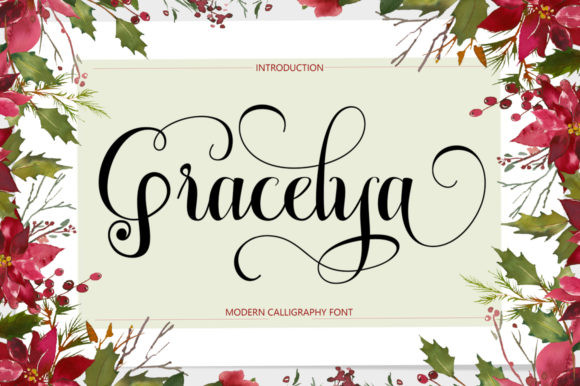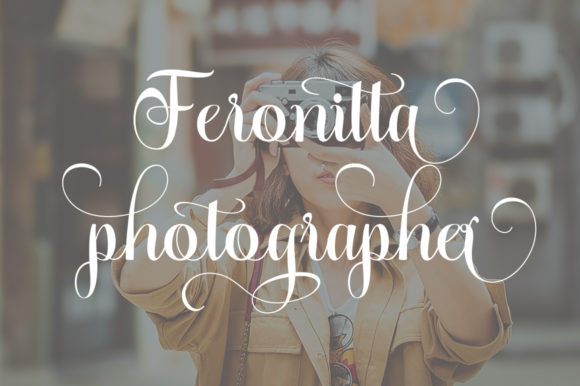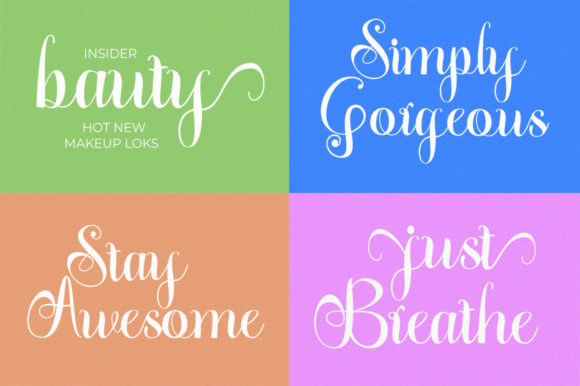
Gracelya Font
Gracelya is inspired by classic calligraphy and brings its own unique style to any design project. This fantastic script font is best suited for headlines of all sizes, as well as for blocks of text that have both maximum and minimum variations. Whether it’s for web, print, moving images or anything else – Gracelya will look spectacular.